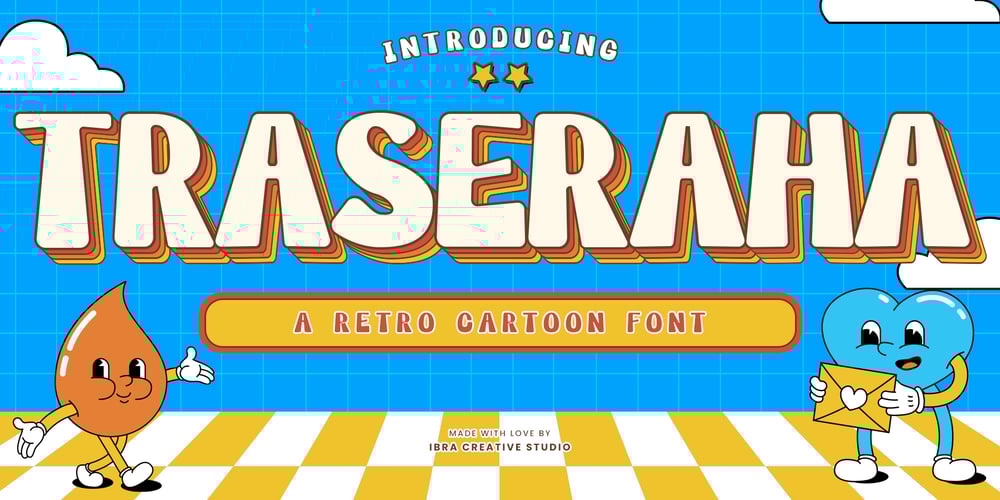
Traseraha
Traseraha font
Traseraha Font Family was designed by Roisatul Azizah and published by IbraCreative. Traseraha contains 1 styles and family package options. Traseraha – A Retro Cartoon FontTraseraha, a captivating retro cartoon font, effortlessly channels the whimsical charm of classic animated aesthetics. Designed by the creative minds at Traseraha Studios, this font pays homage to the golden era of cartoons with its playful curves and vibrant personality. Each letter exudes a nostalgic vibe, reminiscent of vintage comic strips and animated shows, making it an ideal choice for projects seeking a touch of retro flair. The Traseraha font seamlessly blends fun and readability, allowing it to shine in a variety of applications, from logo designs to creative headlines. With its unique character and timeless appeal, Traseraha captures the essence of a bygone era while injecting a dose of lighthearted energy into contemporary design projects.Traseraha is perfect for branding projects, logo, wedding designs, social media posts, advertisements, product packaging, product designs, label, photography, watermark, invitation, stationery, game, fashion and any projects.cartoon font, cute font, traseraha font, retro, vintage, 90s, 80s, 70s, cartoon, cartoon font, comic, comic font, delicious, display, display font, distressed, hand drawn, handwritten font, headline, holiday font, lettering, mexican, mexico, mexico font, packaging, playful, poster, retro, sticker, vintage fontFonts include multilingual support for; Afrikaans, Albanian, Czech, Danish, Dutch, English, Estonian, Finnish, French, German, Hungarian, Italian, Latvian, Lithuanian, Norwegian, Polish, Portuguese, Slovak, Slovenian, Spanish, Swedish.